1 Google Font Similar to Georgia
Georgia is a serif font that brings an element of friendliness but is also elegant. It has a familiar look to it that was designed to work on small screen sizes. The font is works well at low resolutions and is still legible.
Serif fonts are generally pretty difficult to find a good alternative to because they are very intricate.
Luckily I was able to find one that I feel would be a good alternative in case your project is on a budget.
What Google Fonts are Similar to Georgia?
The best Google Font alternative to Georgia is Tinos.
Tinos is a beautiful serif typeface that shares many characteristics with Georgia.
If you examine the lowercase letters, you will find that they are almost an exact match. There are some minor differences in the "j", "g", and "y".
Overall, they are very identical.
The uppercase is the same thing. There are some minor differences in the "J" and "Q", but overall they look very similar.
Compare below.
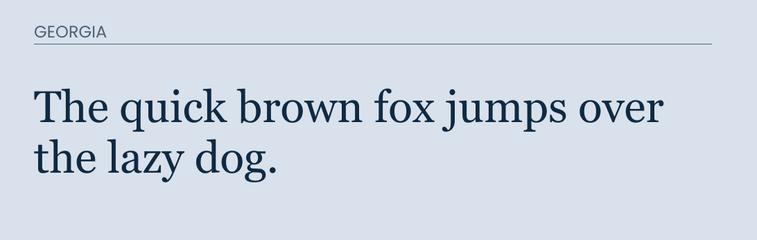
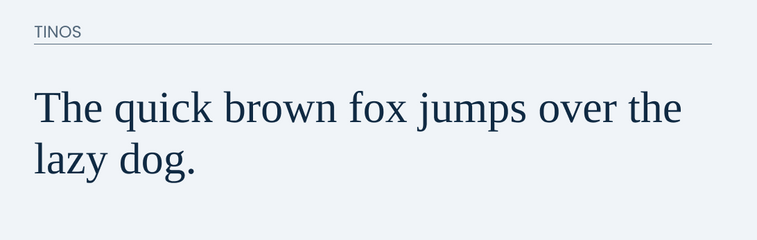
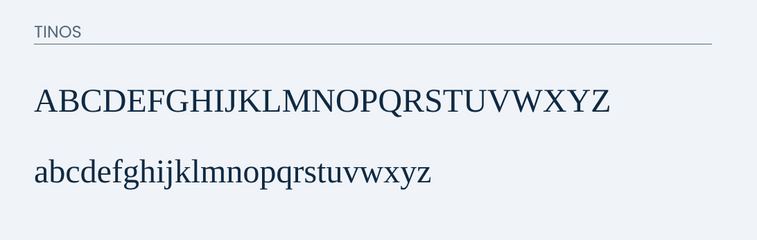
Final Thoughts
Although I could only find one alternative, I am happy with what I found. Tinos would make a great alternative to Georgia. However, if you are in a position to do so then I recommend buying the font from the creator to support them.